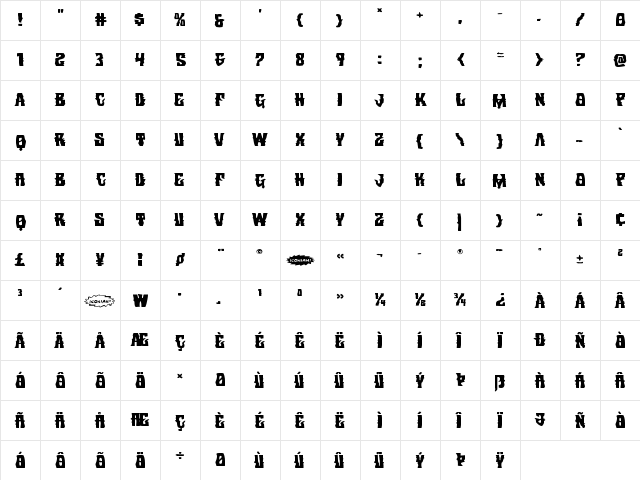
Warlock's Ale Expanded Expanded
Design Context for Warlock's Ale Expanded Typeface
Warlock's Ale Expanded is a composed and adaptable typeface that performs quietly and consistently across a wide range of design contexts.